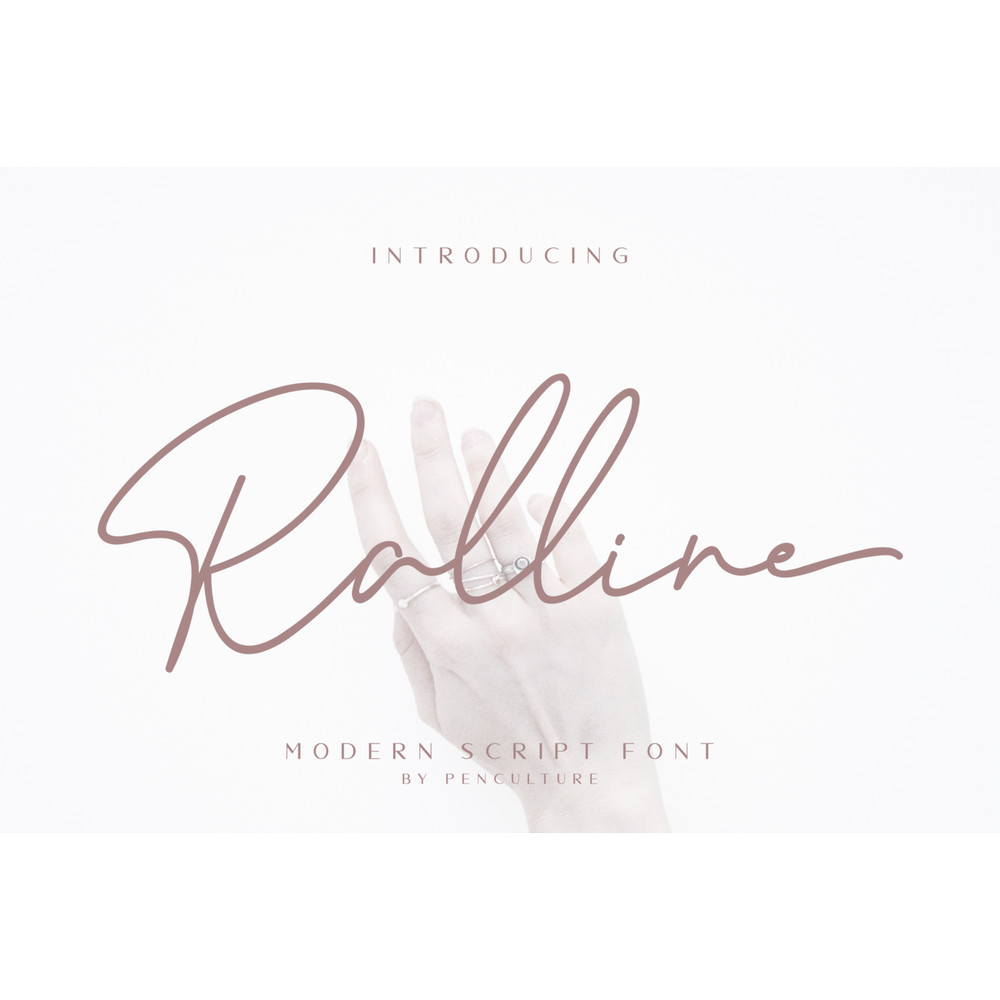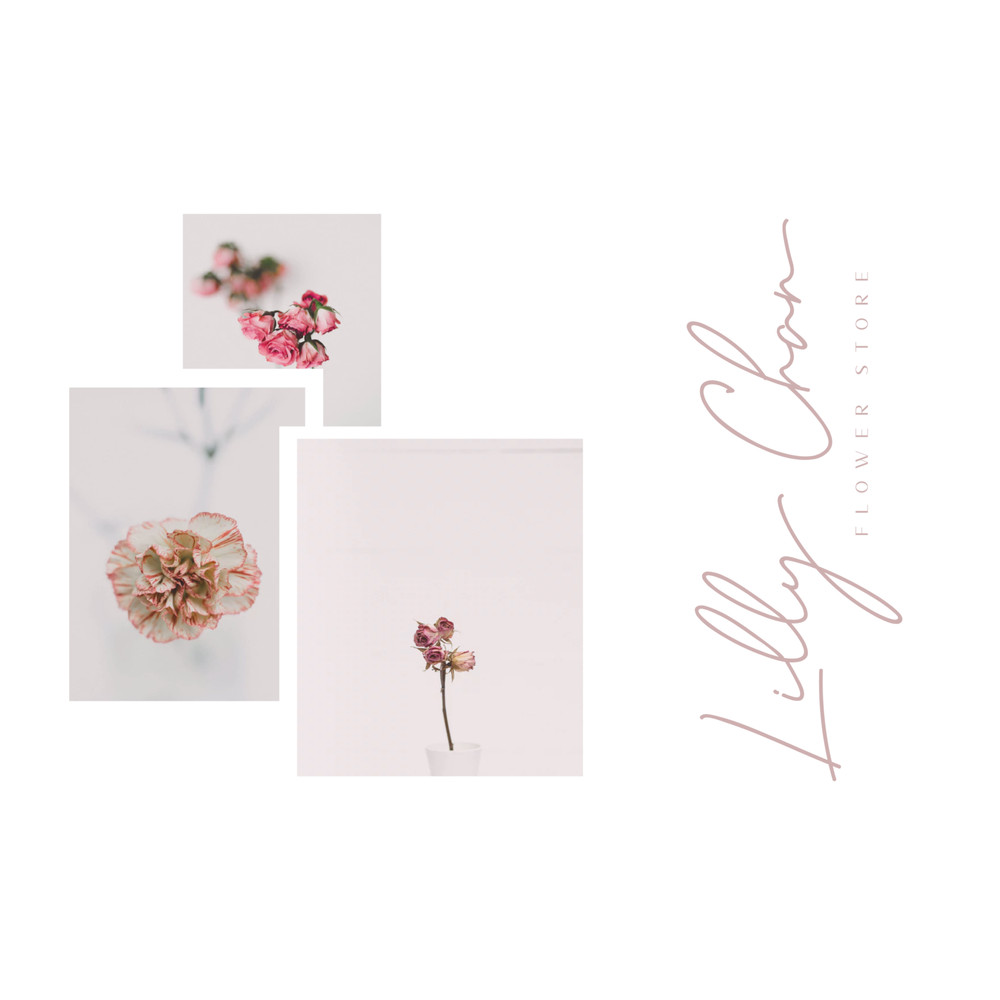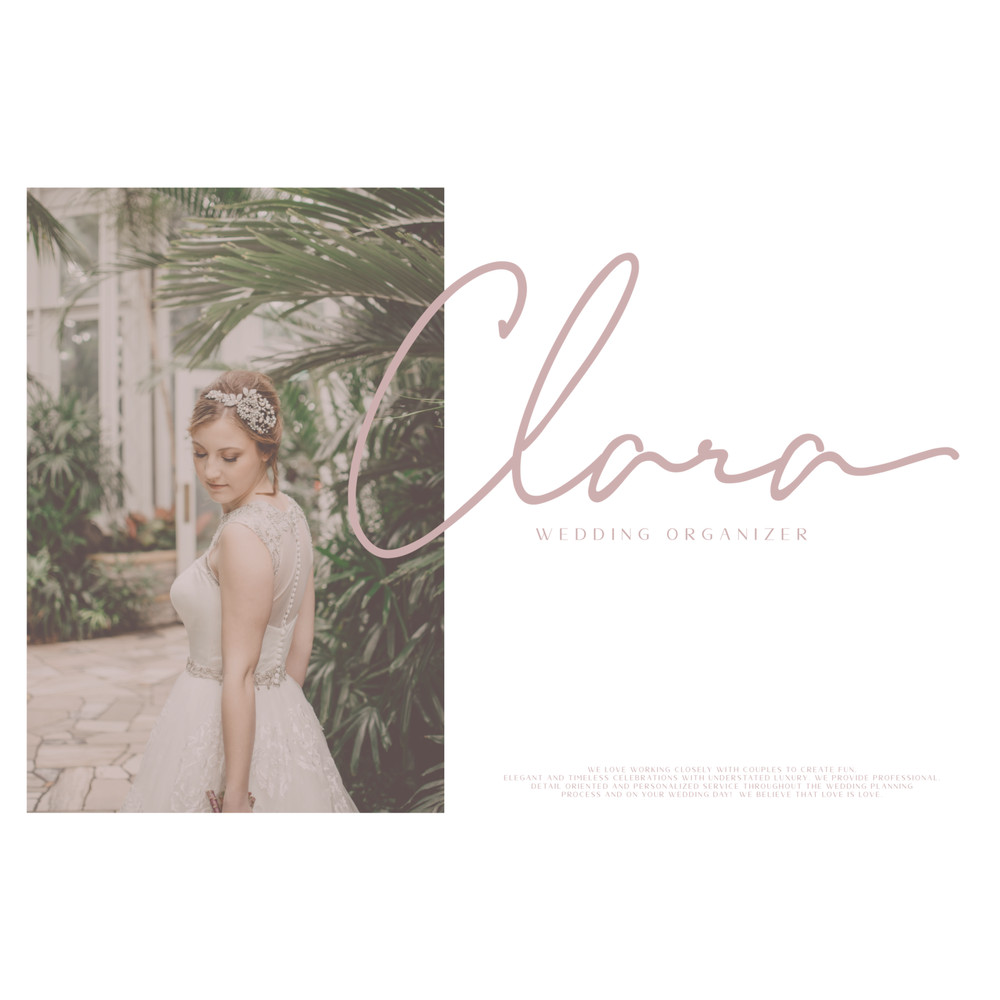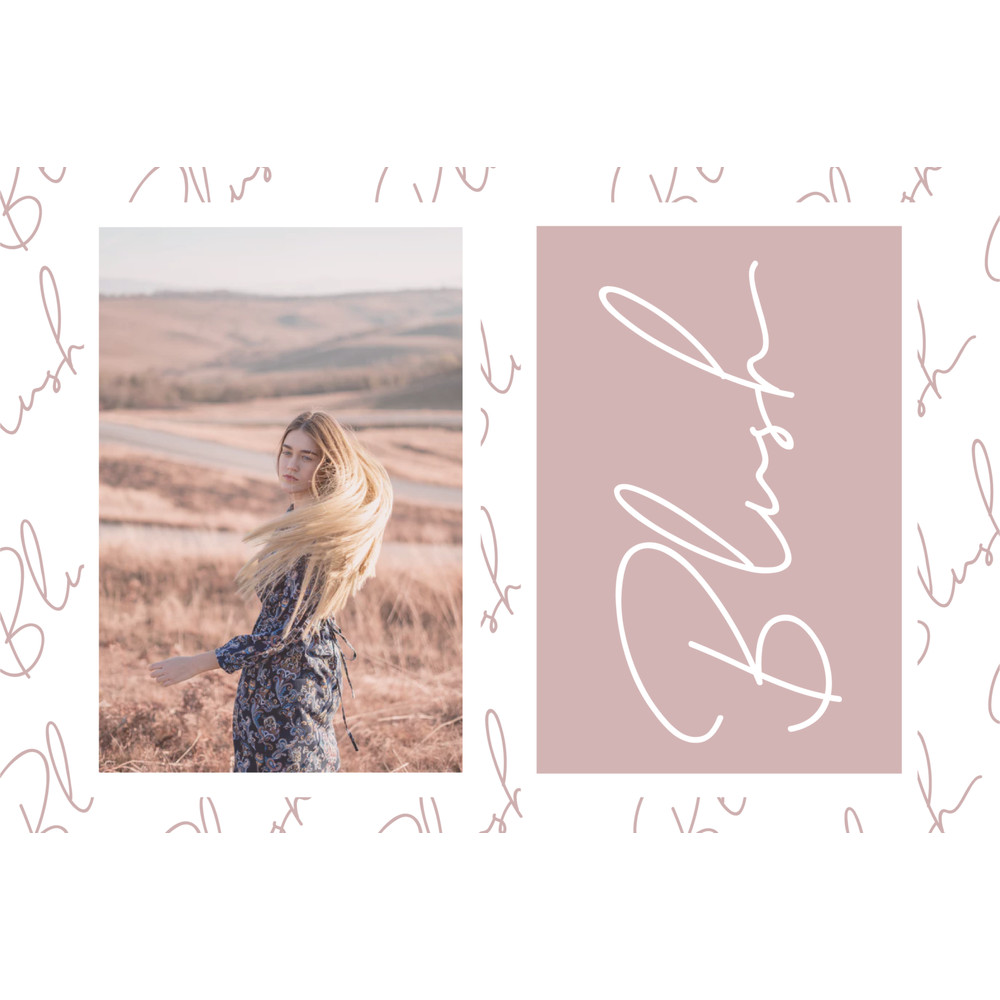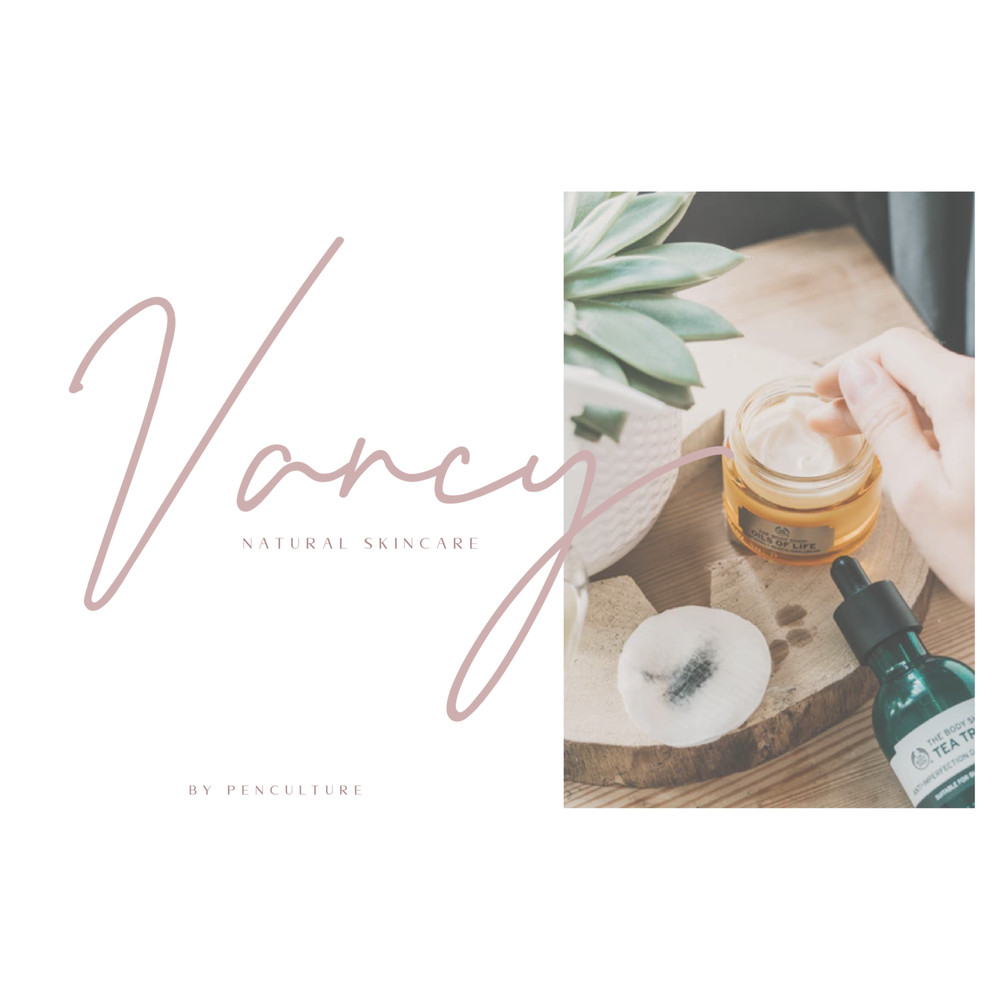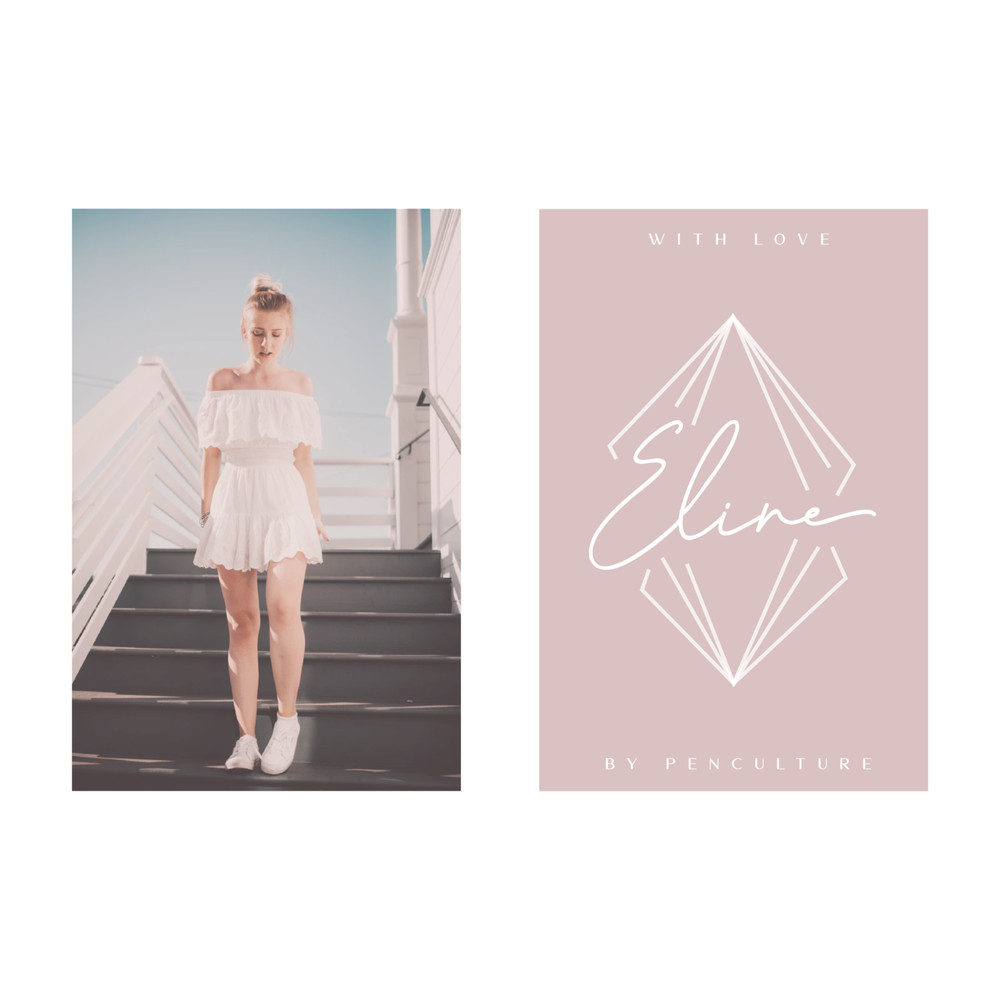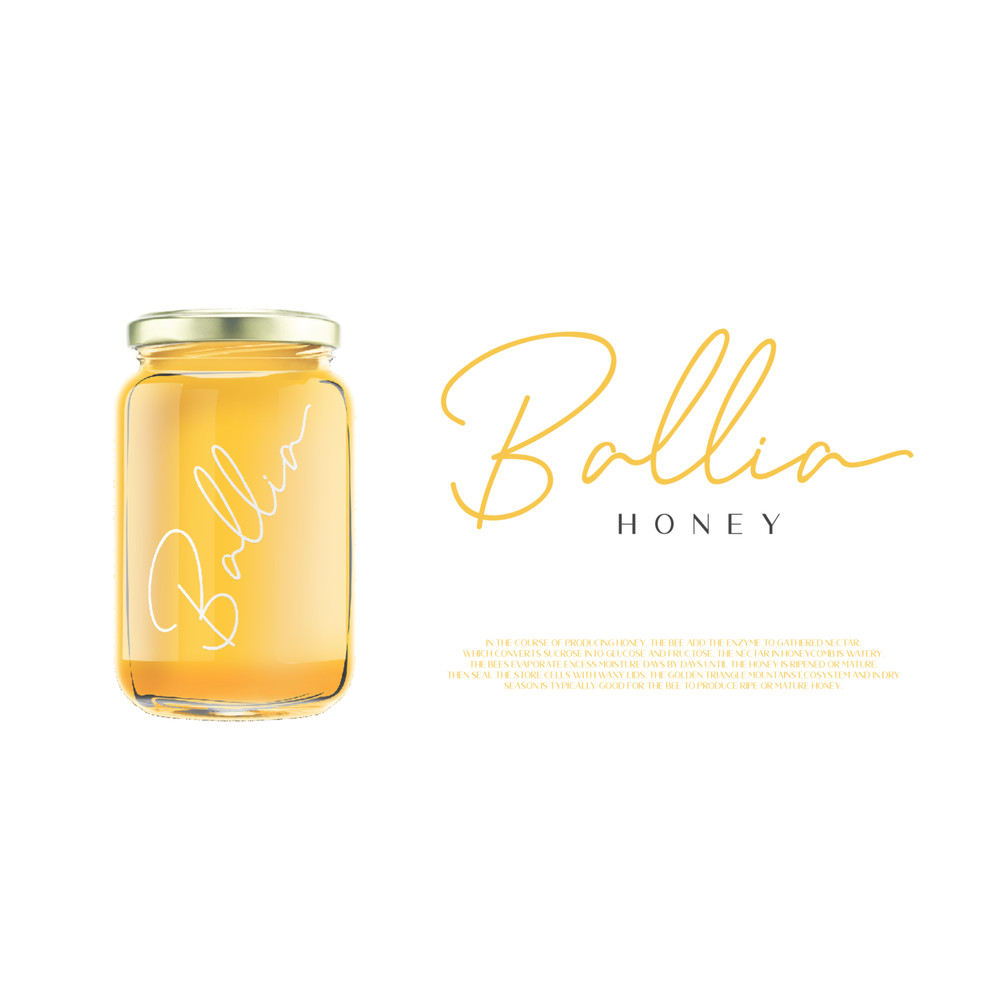
Ralline – Modern Signature Font” a natural and fashionable script font with complete features that will be very pleasant. This font easy to use and perfect for logo design / branding, watermark photos, product packaging, and much more.
Feature and what inside:
– uppercase and lowercase
– number and punctuation
– ligature
– Swashes
– Multilingual support